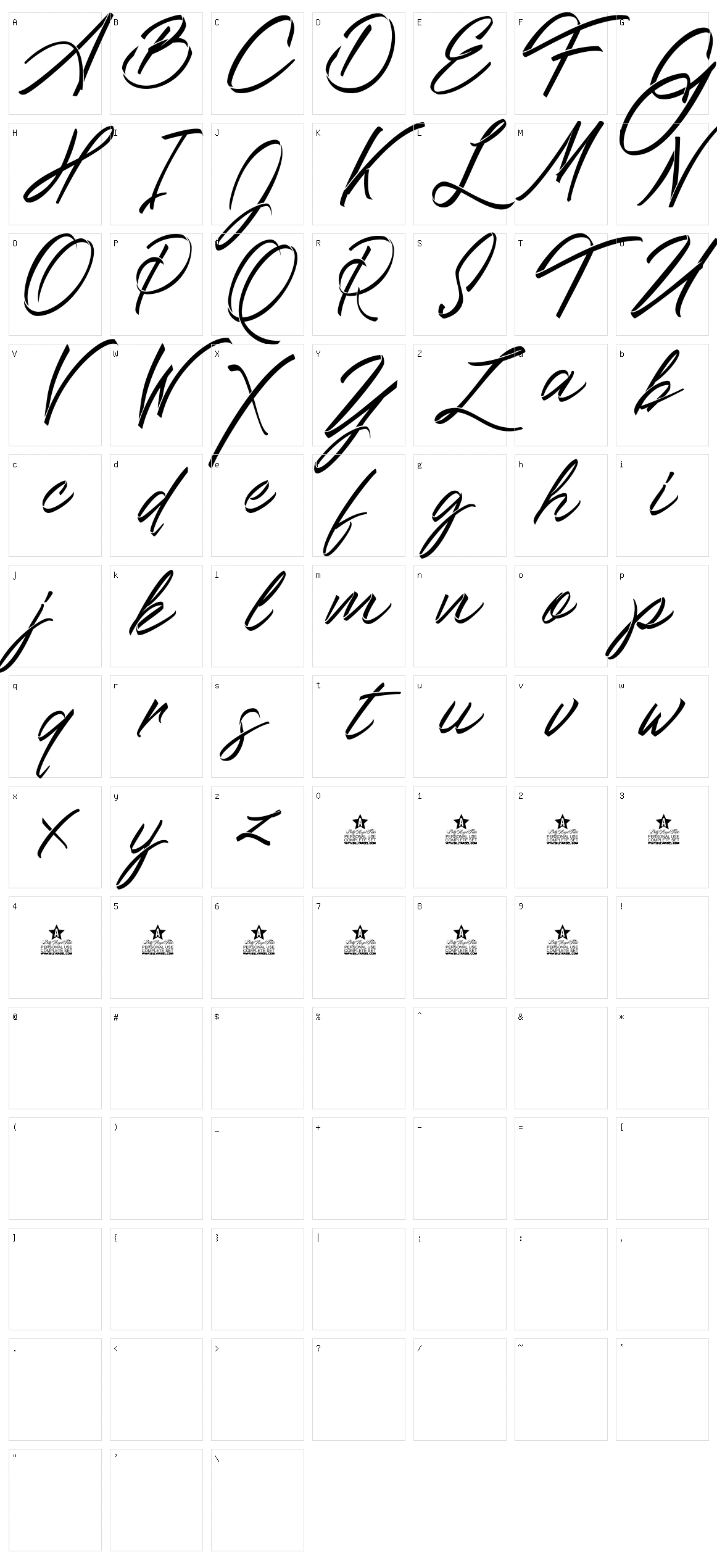
The free font Ribbons in the wind is carefully designed by Billy Argel Fonts ?, showcasing a thoughtful balance of creativity and usability and falls under the Script font style. When you download the ZIP file, it contains only 65.11 KB of font files, making it lightweight and quick to download. Please review the license details below to understand permitted usage and distribution rights. If license information is not available, we recommend using this font for personal projects only or contacting the author directly for commercial usage permissions.